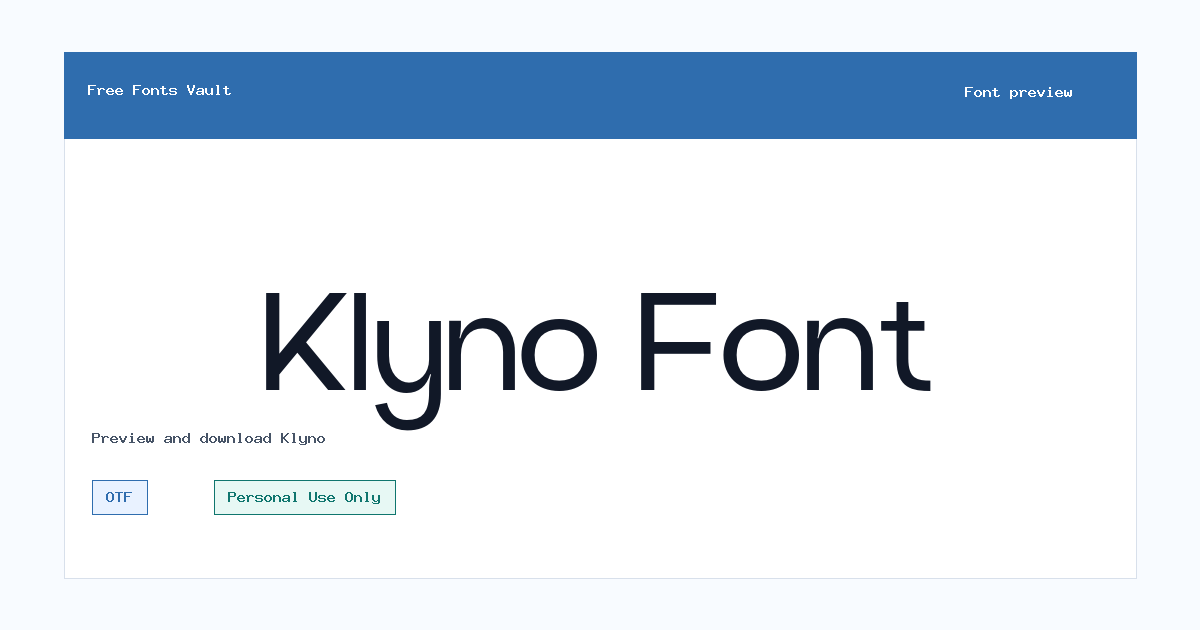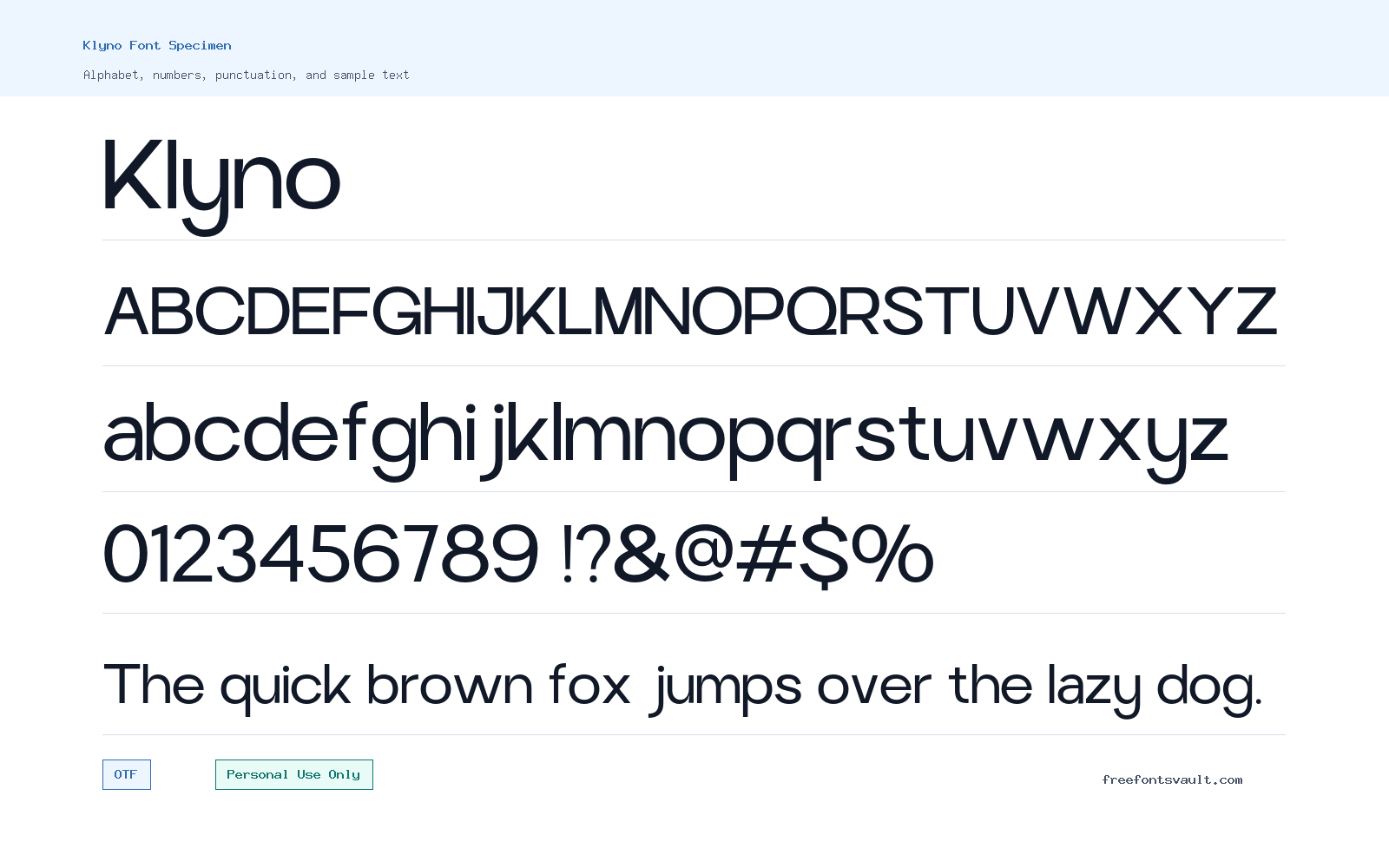
Klyno
- Designer Bakhrudin Ja'far
Klyno font.
Klyno is a sans serif font family with a Regular OTF style for personal projects. It is a practical choice when you want to test a clean, upright typeface in titles, simple graphics, and short text layouts.
About Klyno Font
Klyno comes as a regular 400-weight OpenType font, so it is best treated as a balanced everyday style rather than a heavy display face or a full multi-weight family. The font is identified as a sans serif, which makes it useful for visitors who want a straightforward look without decorative strokes. Use the preview box to check its letter spacing, uppercase shapes, numbers, and punctuation before downloading, especially if your design depends on tight headlines or small labels.
Because only one Regular style is listed, Klyno works most naturally in projects that do not require a full typographic system. Try it for personal posters, social graphics, logo drafts, mood boards, presentation titles, quote cards, and simple web mockups. For longer reading, test a paragraph first instead of judging from the name alone. If the text starts to feel too plain or too compact, pair Klyno with a more neutral body font and keep Klyno for headings, short captions, or branding experiments.
- Sans serif design suited to short, clean text settings
- Upright normal style for titles, labels, and personal design tests
- Personal poster and social media graphics
- Headline tests, logo drafts, and branding concepts
- Presentation covers, quote cards, and simple title layouts
- Short labels or captions where a sans serif look is preferred
Before using Klyno in a finished project, preview your exact words in uppercase, lowercase, and mixed case. Check numbers and punctuation if the design includes dates, prices, file names, or short interface text. Since the listed download is a single Regular OTF file, create contrast with size, spacing, color, or a separate companion font rather than relying on bold or italic styles that may not be included.
What is Klyno best used for?
Klyno is best tested in short personal designs such as headings, posters, social graphics, logo drafts, and presentation titles.
Who designed Klyno?
Klyno is credited to Bakhrudin Ja'far.